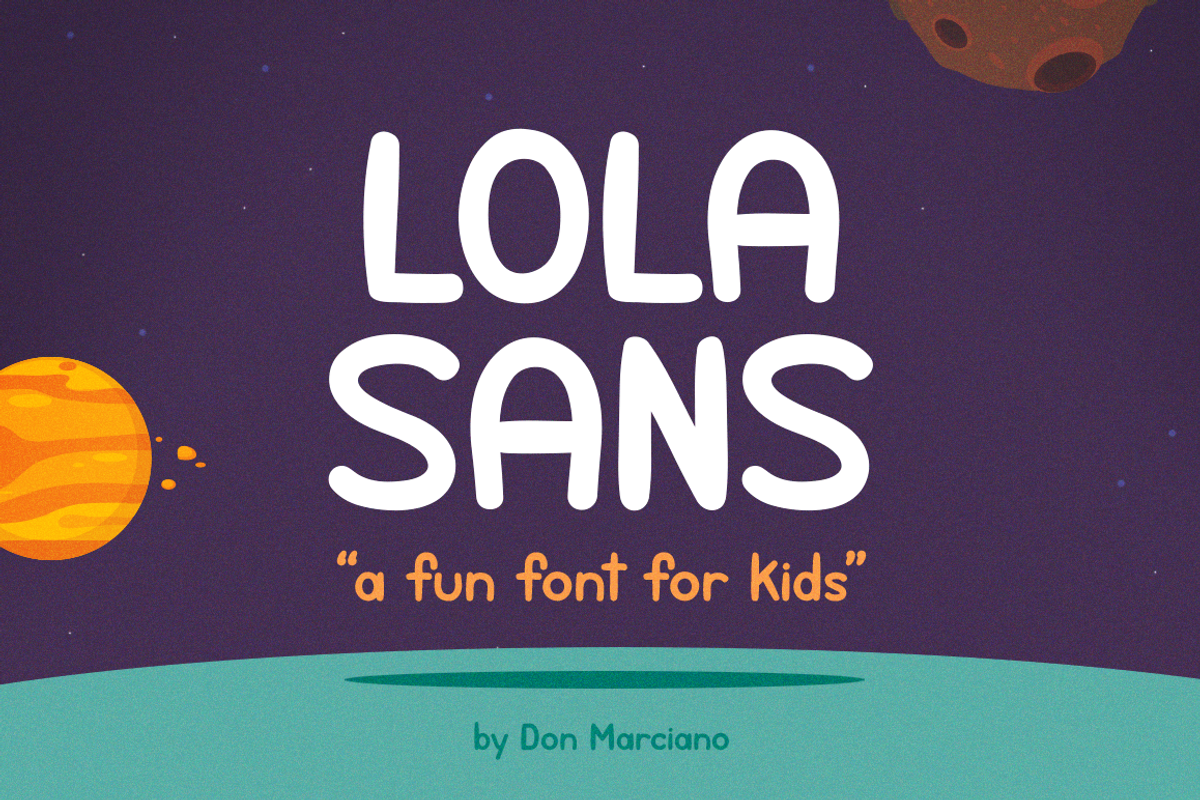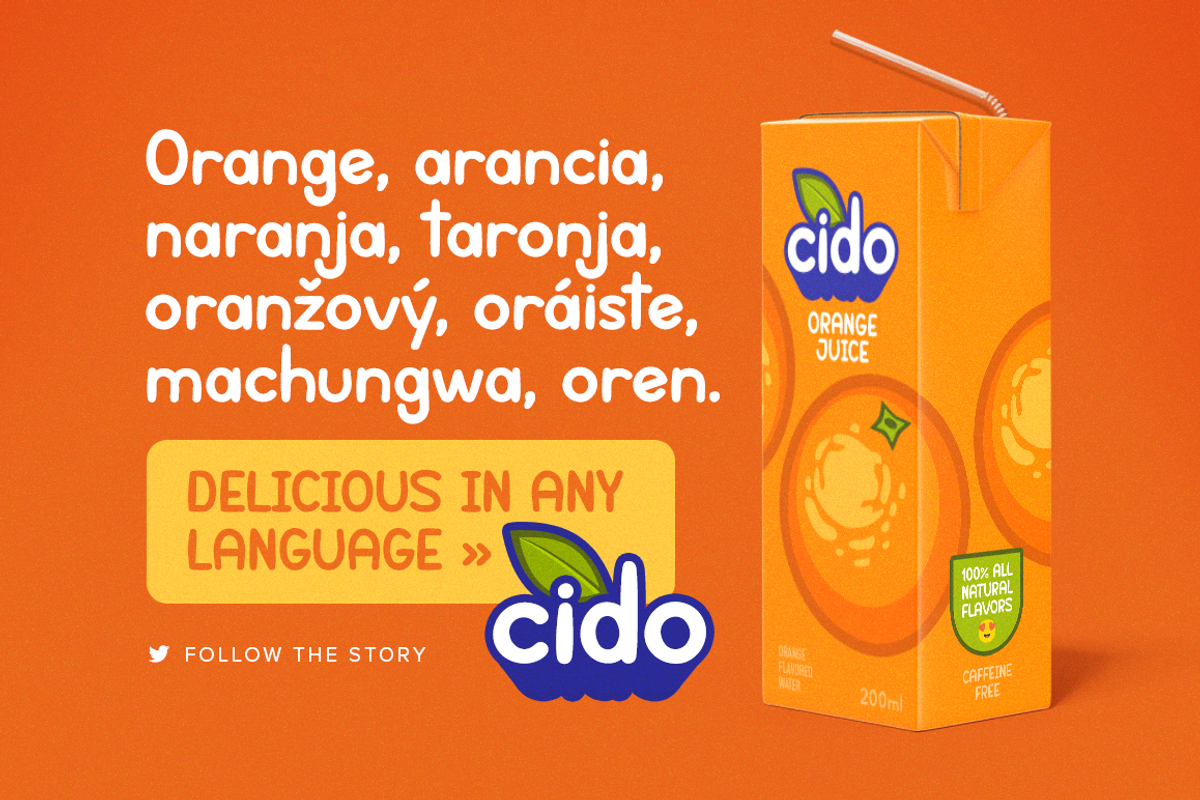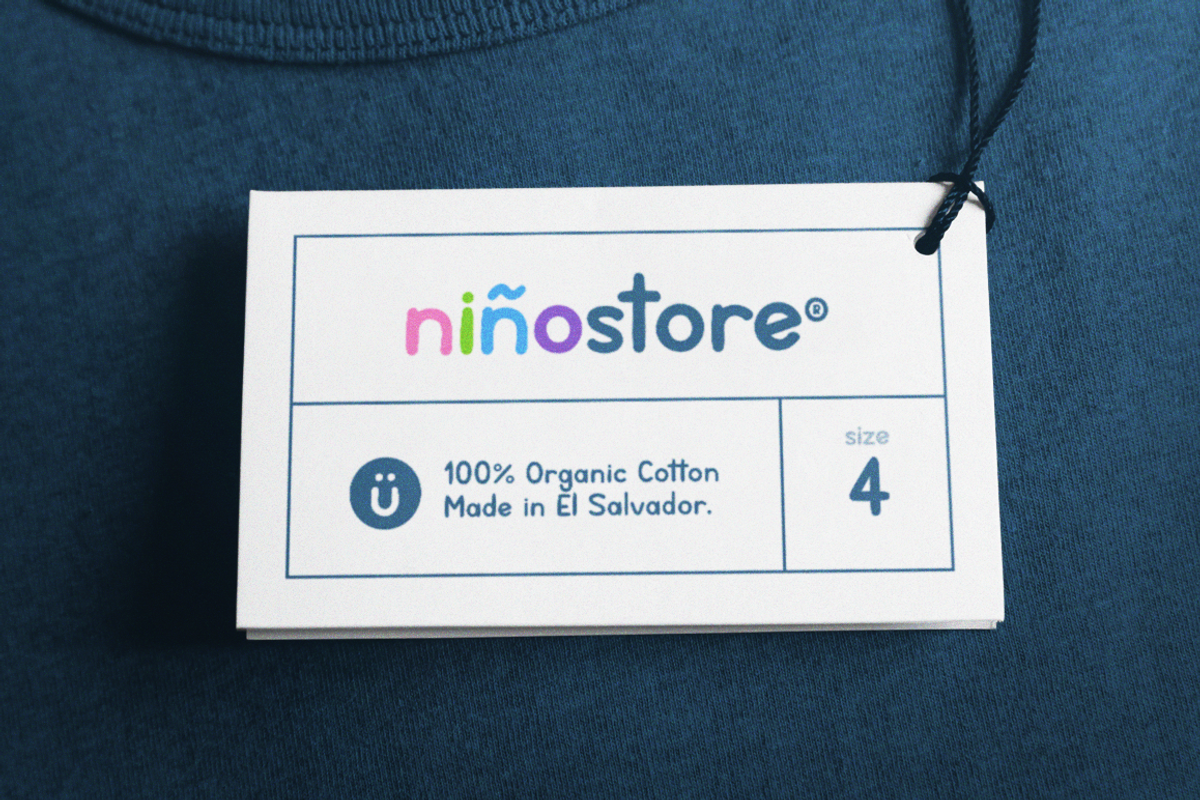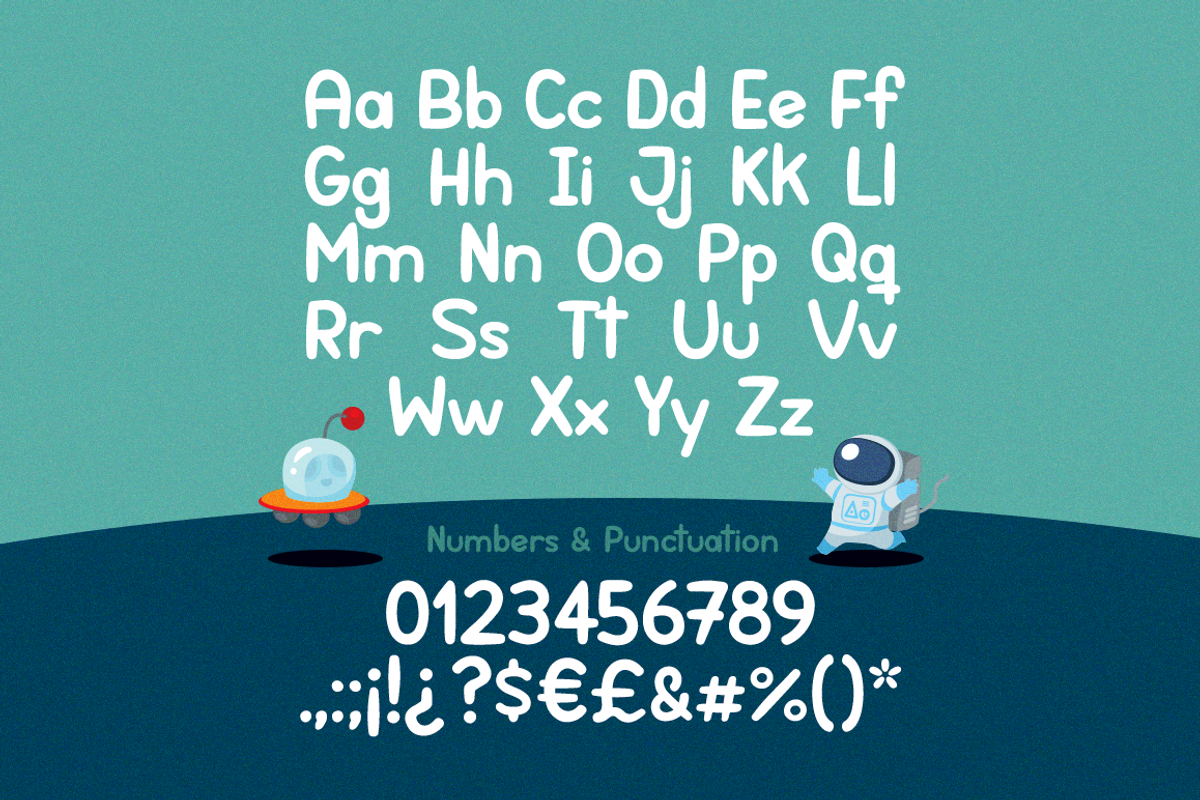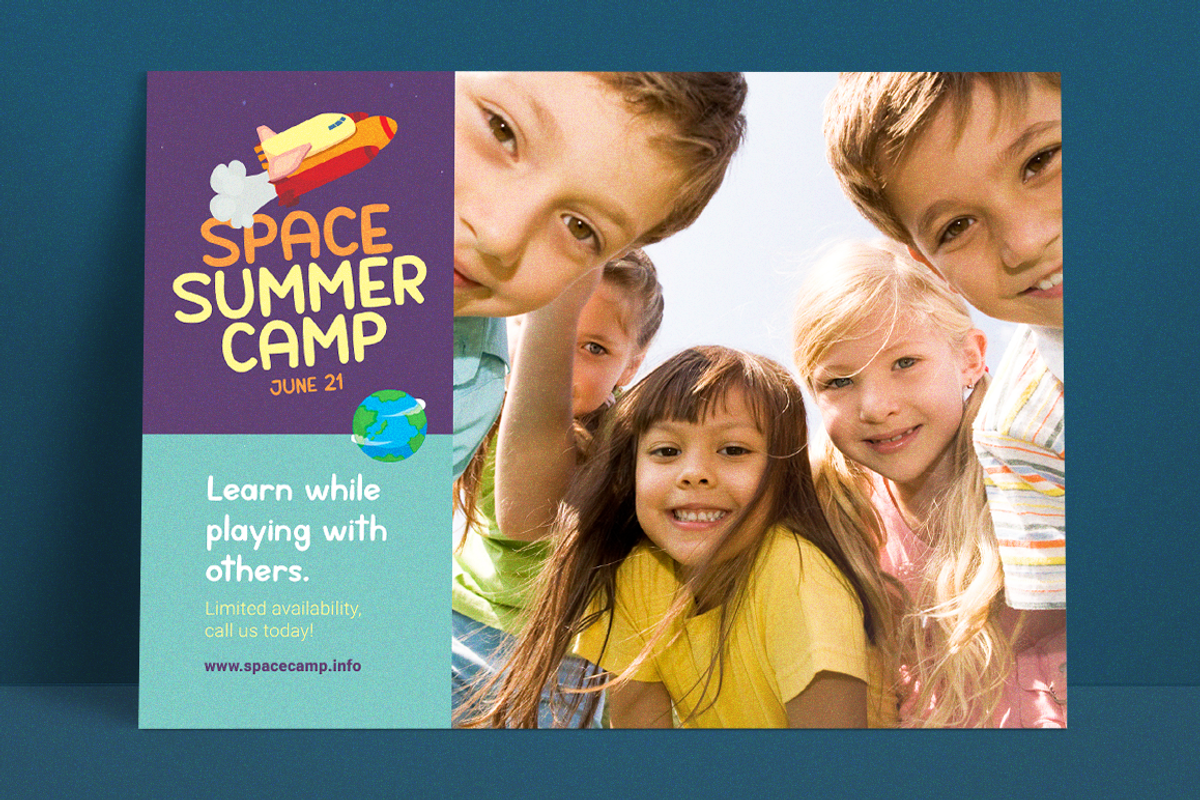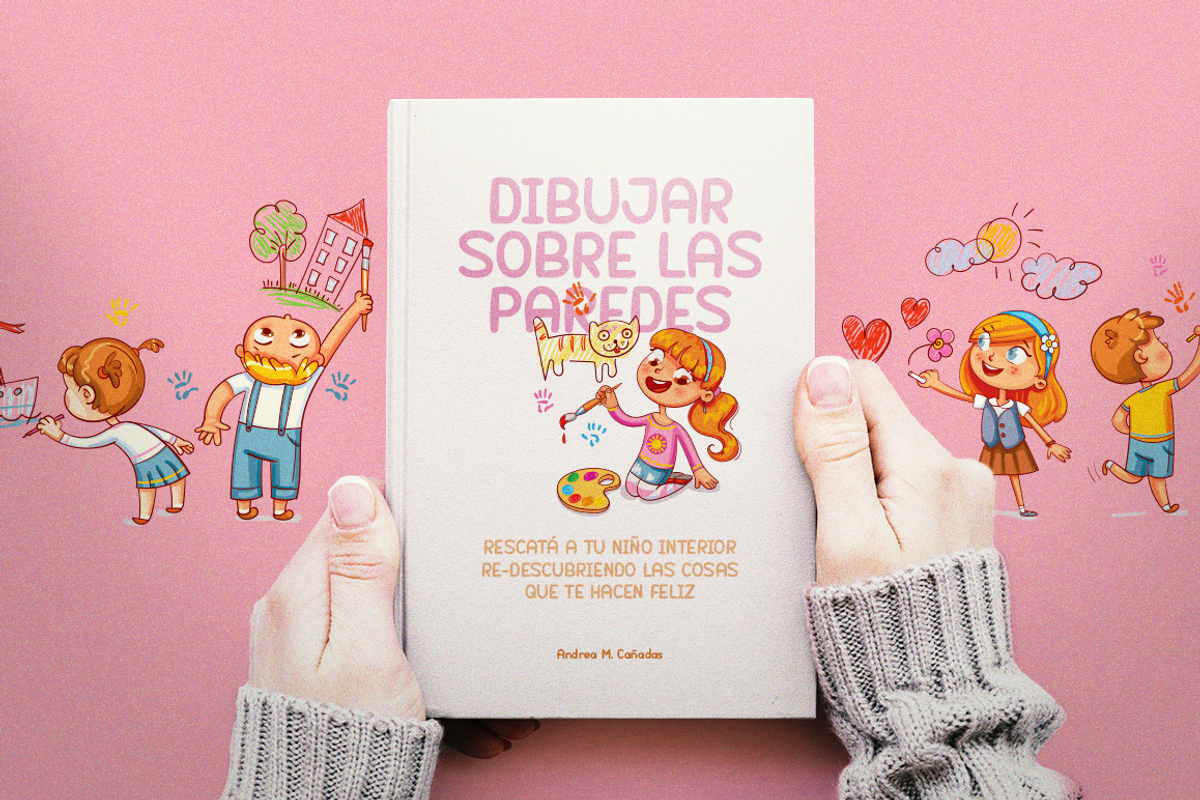
Lola Sans
Lola Sans is a bold fun font created for children-related themes, with a rounded aesthetic for a handwritten look and feel, this font helps capture that special message with a beautiful typeface style. The file includes lower and upper case characters, standard punctuation, and international characters for multi-language support features to help you with your creative goals.